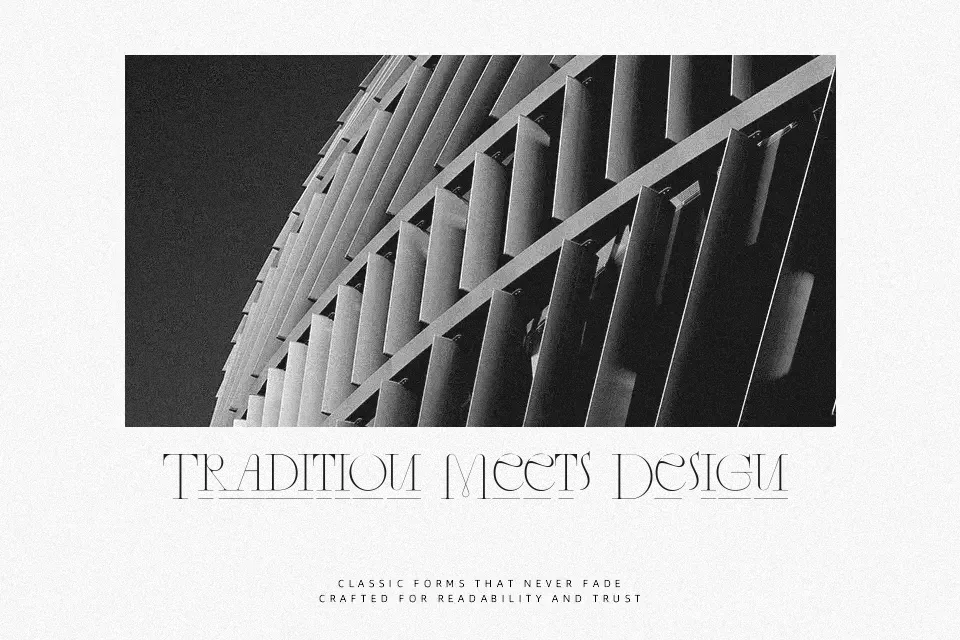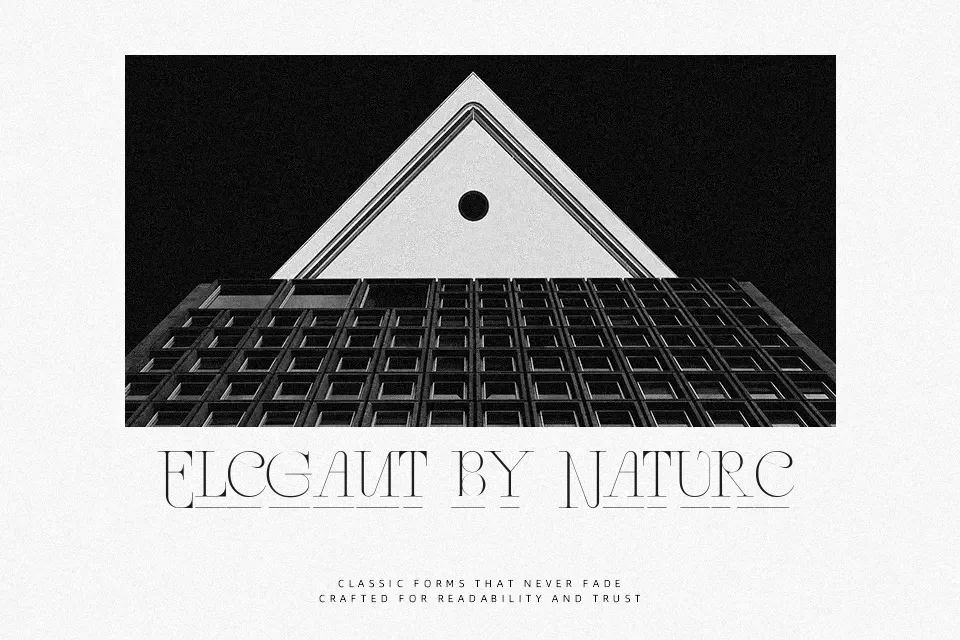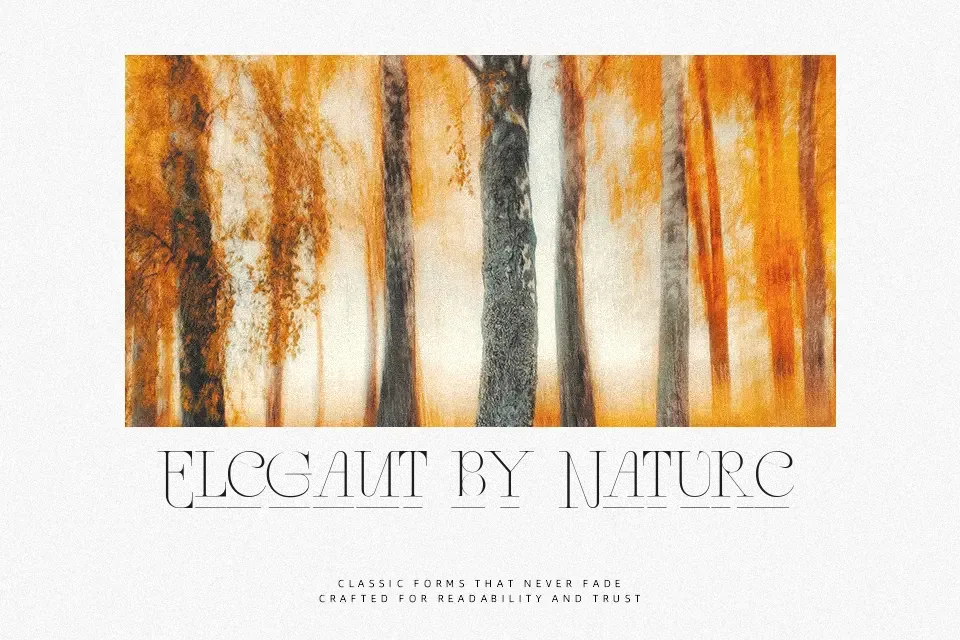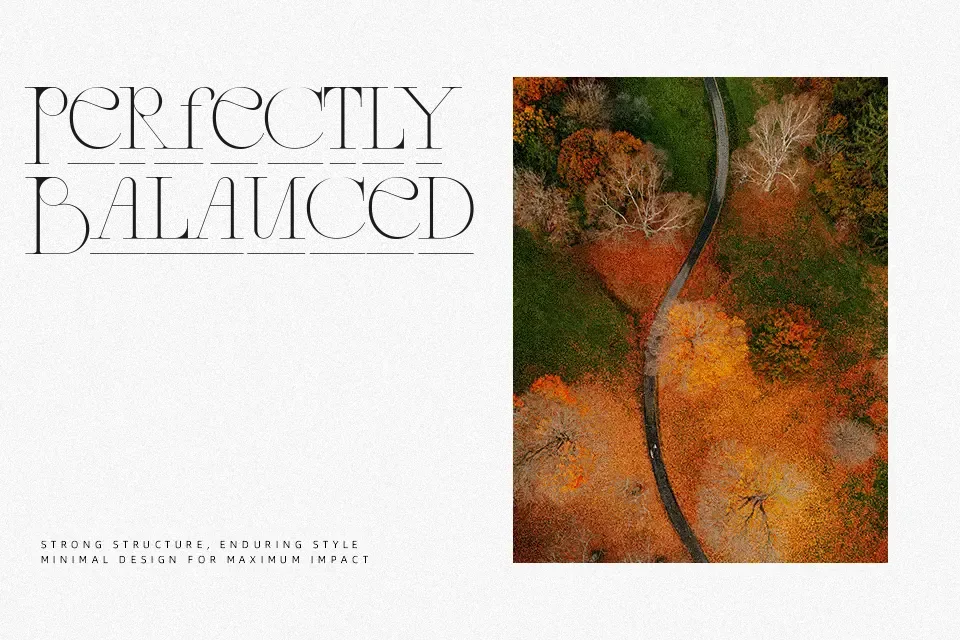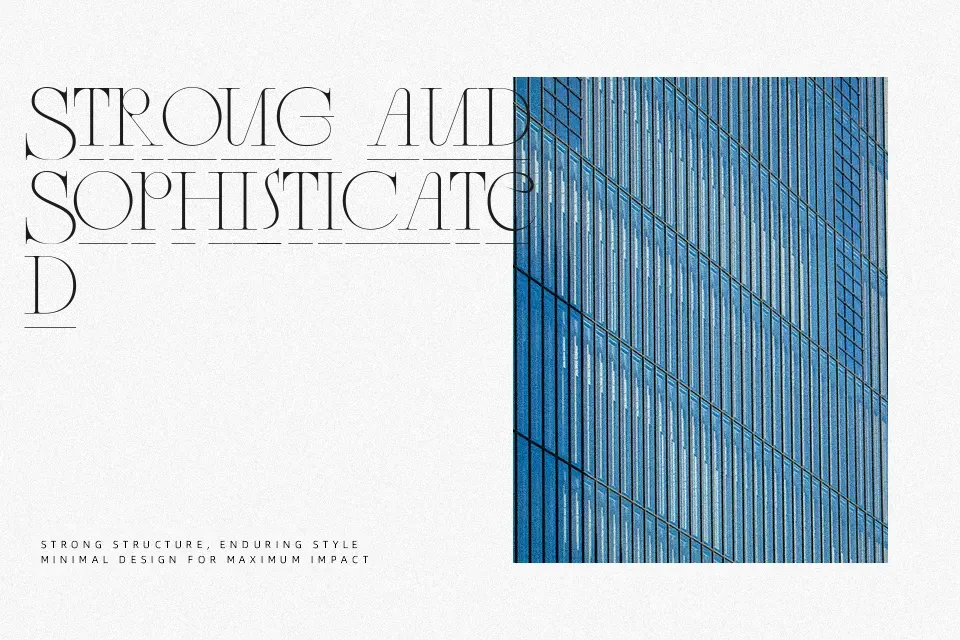
Ancient Greece Font
Designed by 177Studio
Tall, high-contrast serifs with carefully spaced small caps and built-in ligatures give Ancient Greece a polished, editorial character — somewhere between classical monument lettering and modern luxury branding. The letterforms carry a measured formality: tight, structured strokes that hold visual weight at display sizes. It fits naturally in haute couture lookbooks, heritage brand identities, or museum exhibition titles where a classical undertone adds gravitas. That said, the demo version covers only a limited glyph set, which can be a real obstacle in multilingual or accented-character projects. At body-text sizes, the high contrast and decorative details collapse quickly, so this is strictly a headline-grade typeface. Designers who appreciate the drama of a well-set serif without resorting to overused transitional faces will find it a reliable display option.
– Fashion editorial headers and magazine spreads
– Luxury packaging or label design
– Heritage brand identity titles
– Museum or cultural exhibition posters
– Body text or long-form reading content
– Corporate or tech branding
– Screen UI at small sizes
Perfect for branding, editorial, and fashion, with a classic and display style.